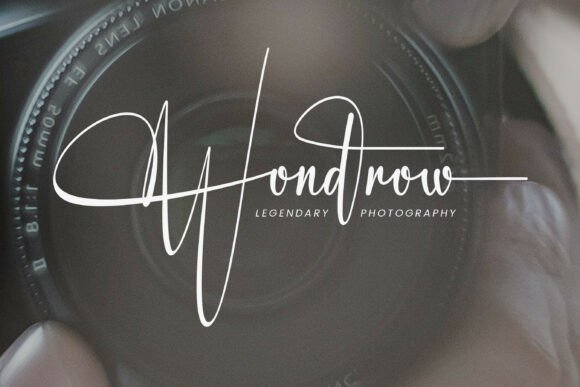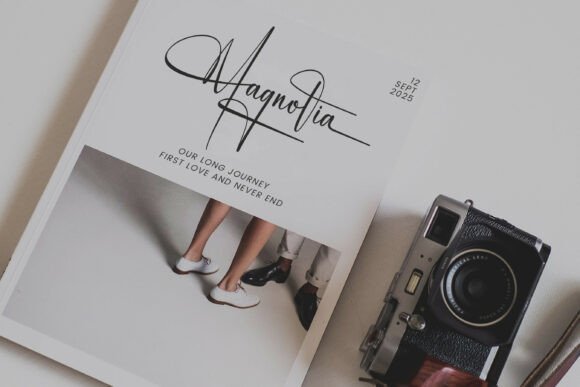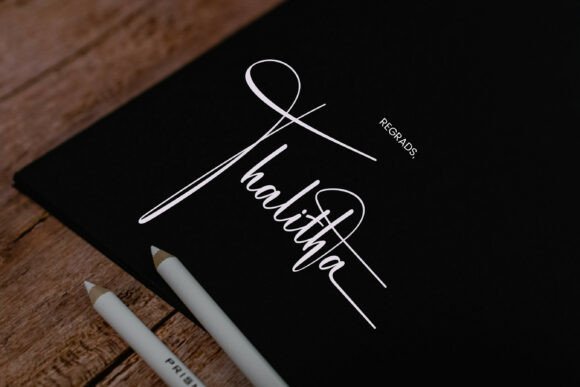
Introduction to Norgehia Font
As a designer, there’s nothing quite like the thrill of bringing a creative project to life. You’ve poured your heart and soul into every detail, from the initial concept to the final flourish. And then, you stumble upon the perfect font – one that elevates your design from good to great. For many, that perfect font is the Norgehia Font, a script signature font that exudes elegance and sophistication.
With its fluid strokes and natural handwriting feel, the Norgehia Font is a design resource that’s hard to resist. Whether you’re creating a luxury brand, designing wedding invitations, or crafting social media posts, this high-quality font is the perfect addition to your toolkit. And the best part? It’s available for free download, complete with a transparent background that makes it easy to integrate into any design.
- This unique font features a distinctive Scandinavian design, making it perfect for projects that require a touch of Nordic flair.
- The font’s clean and modern design makes it an ideal choice for designers looking for a high-quality, professional font.
Honest Review: Norgehia Font
I recently stumbled upon the Norgehia Font, a design resource that caught my attention with its unique and modern design. As a designer, I was excited to dive in and explore its features.
- Unique and modern design aesthetic that’s perfect for creative projects
- High-quality font that’s great for print and digital use
- Available in various weights and styles, offering flexibility for different design applications
- Transparent background, allowing for easy layering and compositing
- Limited character set, which may not be suitable for extended text use
- No support for bold and italic styles, which may limit its use in certain design scenarios
Overall, the Norgehia Font is a solid addition to any designer’s toolkit. While it has some limitations, its unique design aesthetic and high-quality rendering make it a great choice for creative projects that require a modern and sleek look. I’d definitely recommend it to fellow designers looking for a versatile and free design resource.
Norgehia Font is a high-quality design resource ideal for creative projects. It offers a transparent background, making it easy to integrate into various design elements.
Tips for Getting the Most Out of Norgehia Font
To get the most out of Norgehia Font, experiment with different font sizes, styles, and colors to create visually appealing designs.
Norgehia Font is ideal for use in creative projects such as logos, brochures, and social media graphics. Its transparent background makes it easy to combine with other design elements.